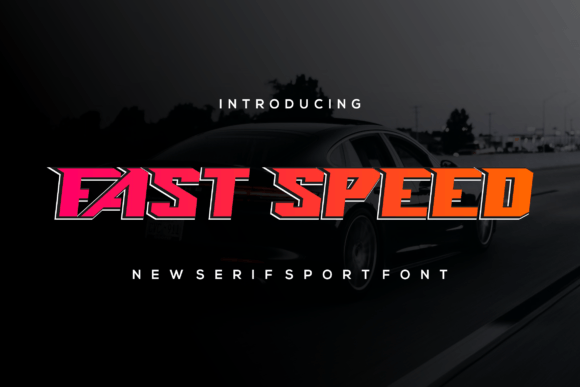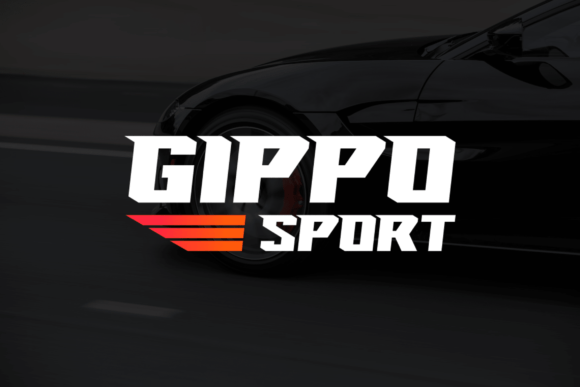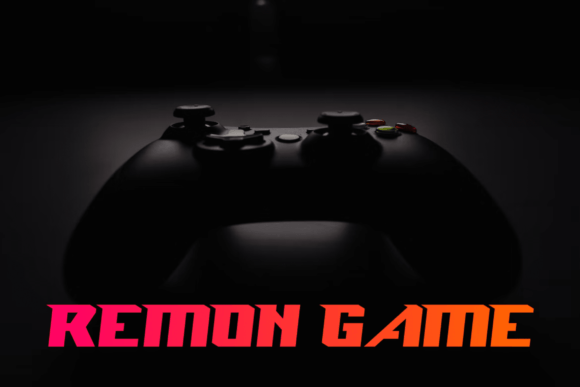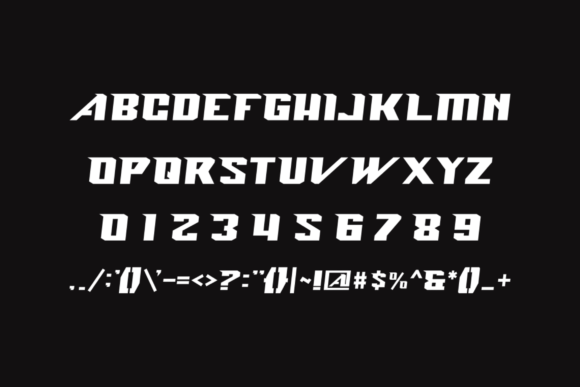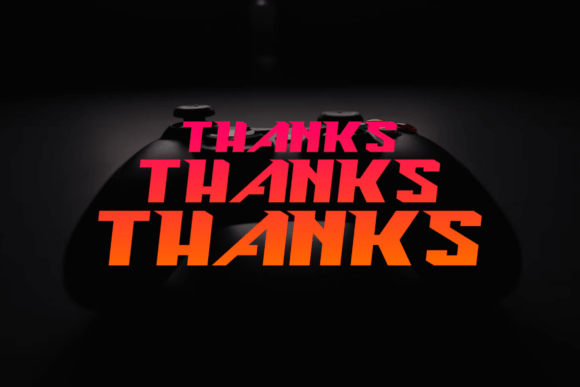
Fastspeed Font
FastSpeed is a bold and authentic slab serif font. The font is suitable for any branding project like logo, t-shirt printing, e-sport, and many more. It will look outstanding in a wide range of contexts